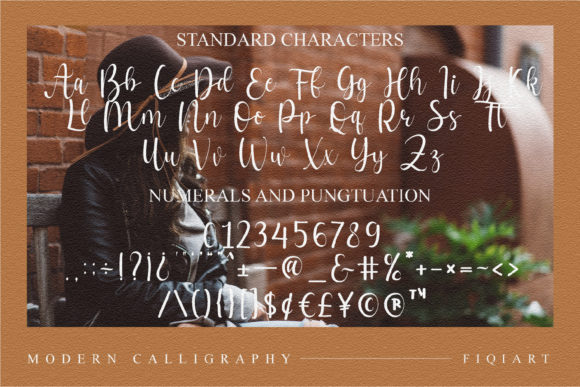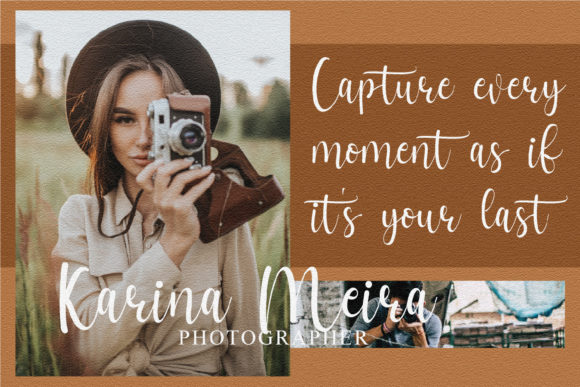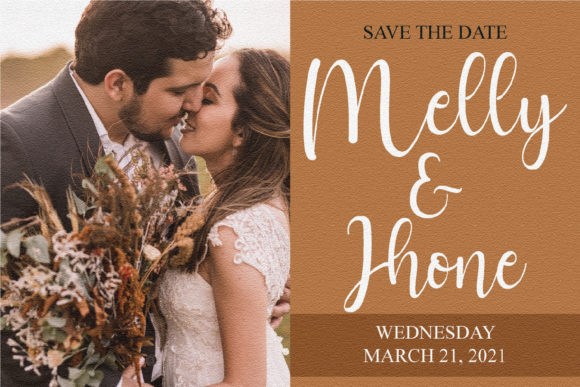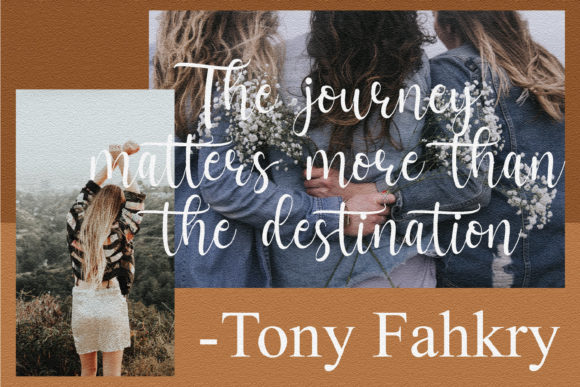
About Wulandari Font
Wulandari is a lovely and timeless handwritten font. It is the best choice for creating eye catching logos, branding and quotes. Every letter has a unique and beautiful touch, which will make your design come alive!